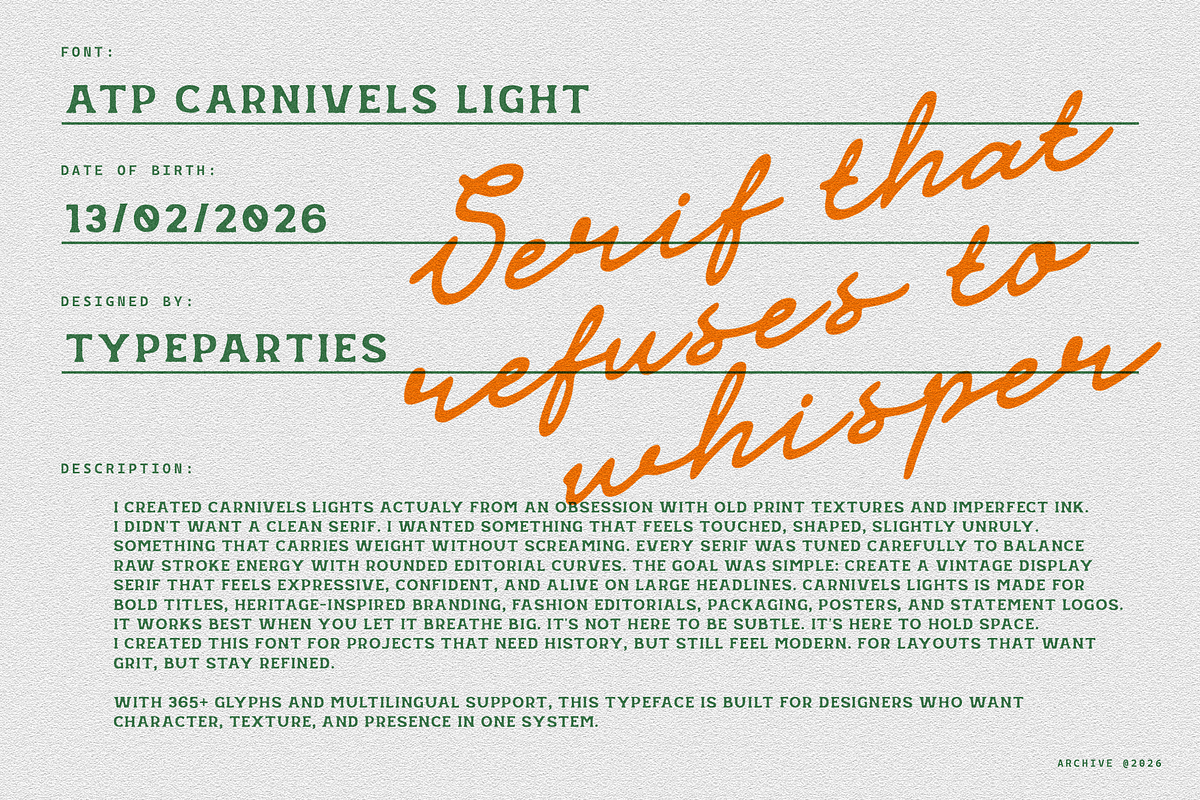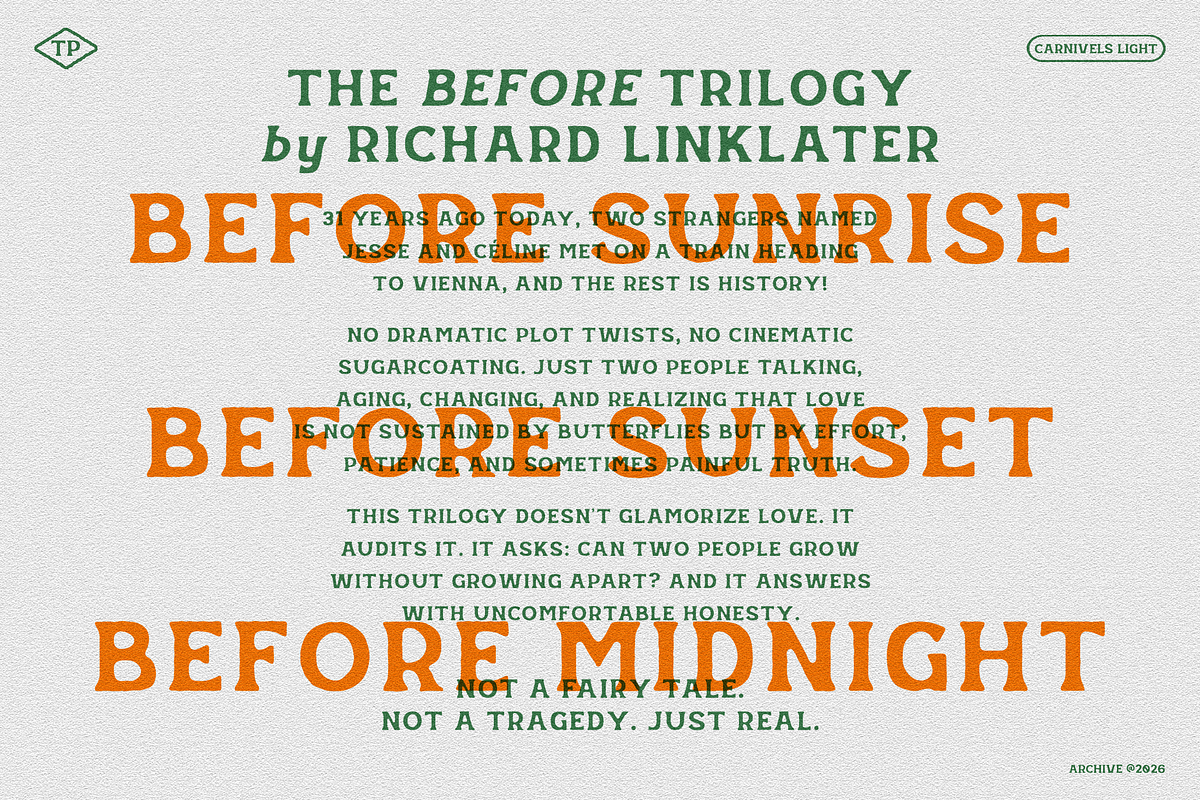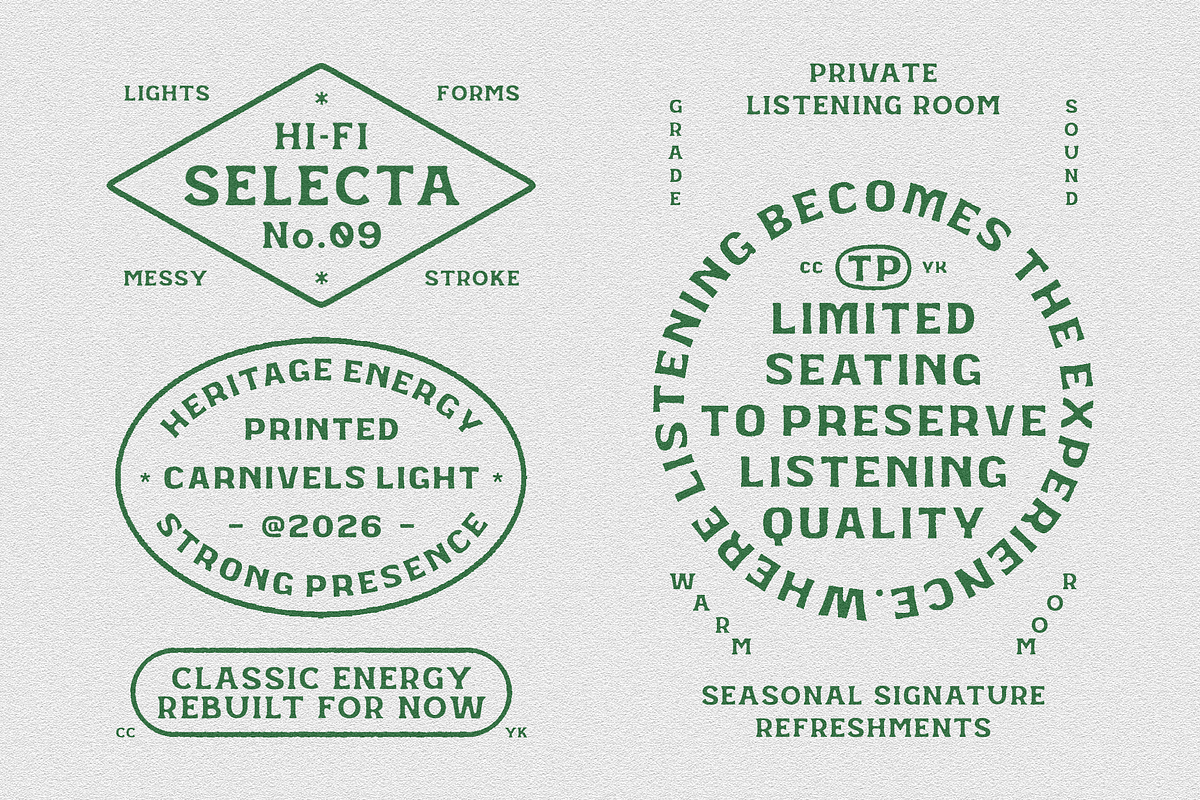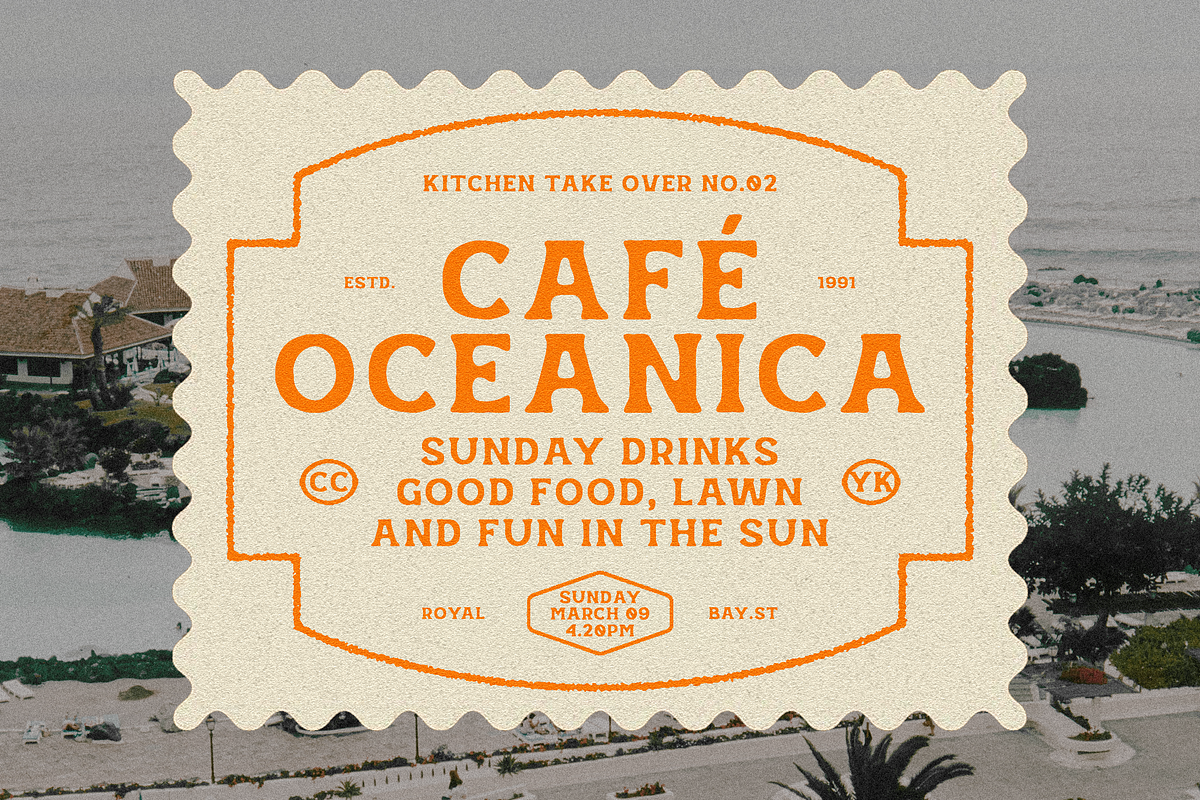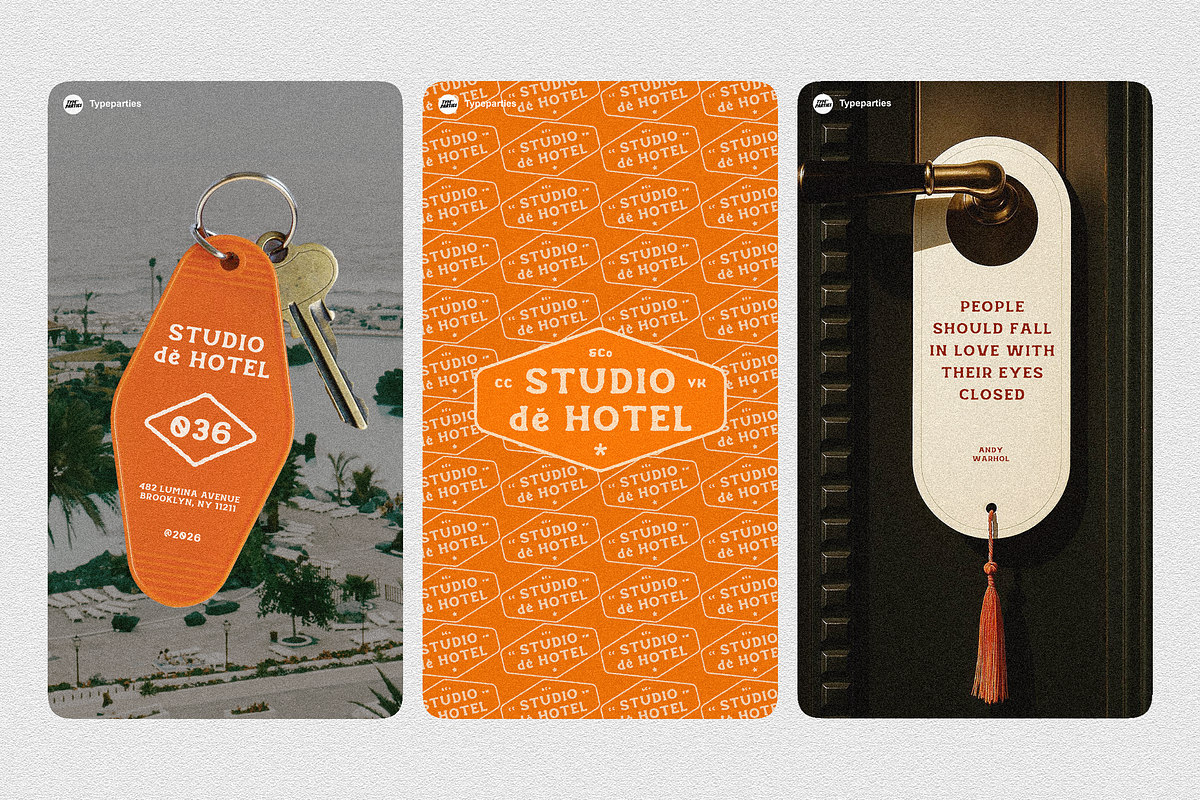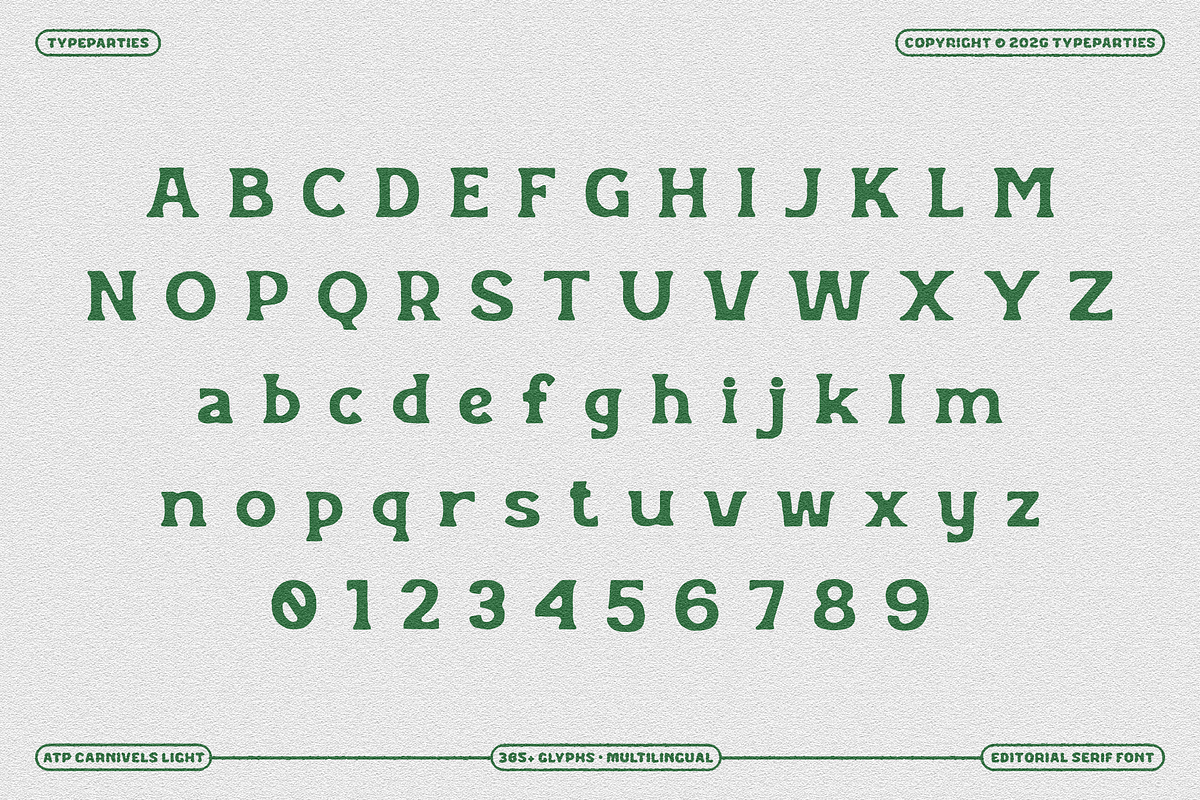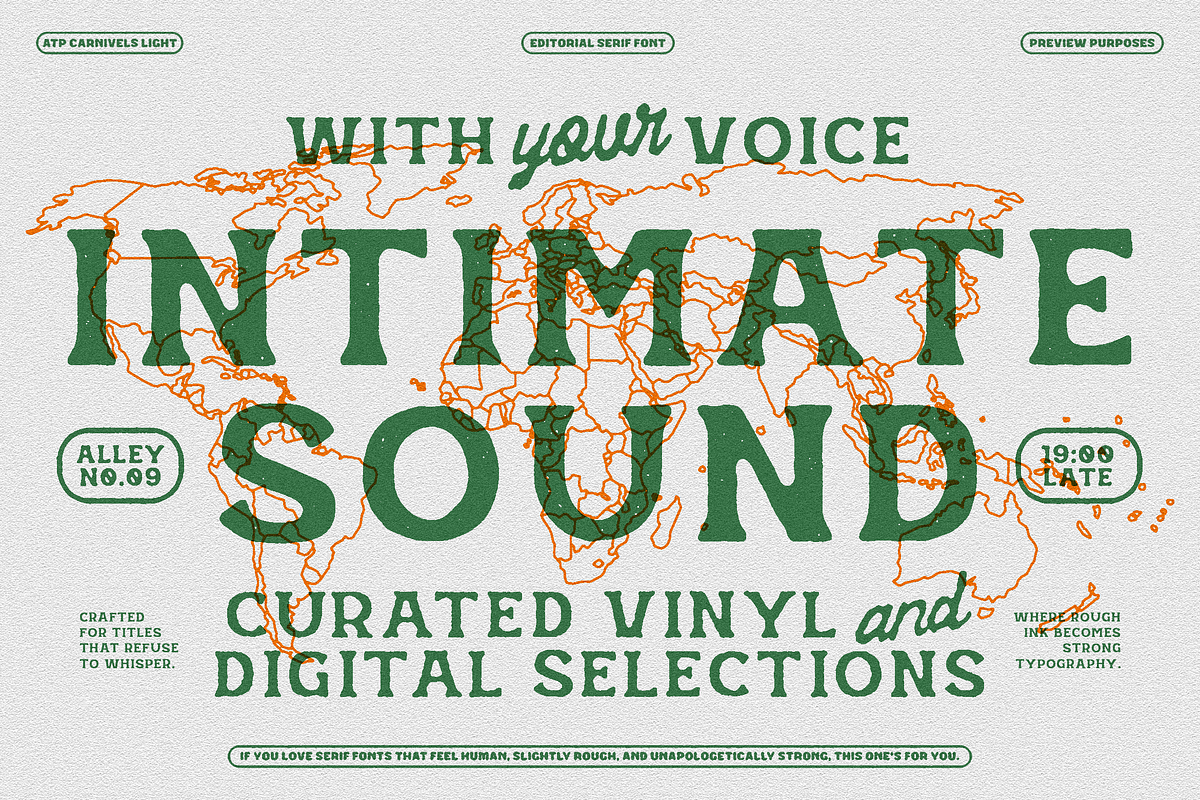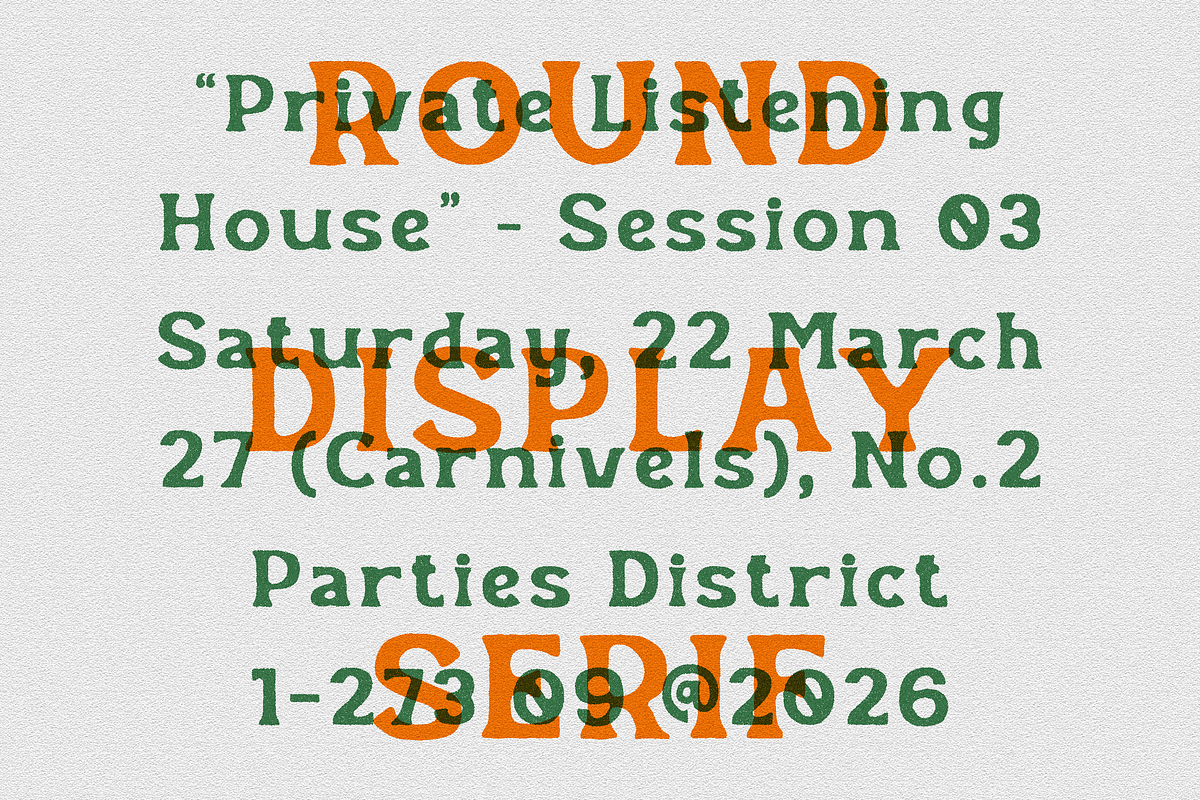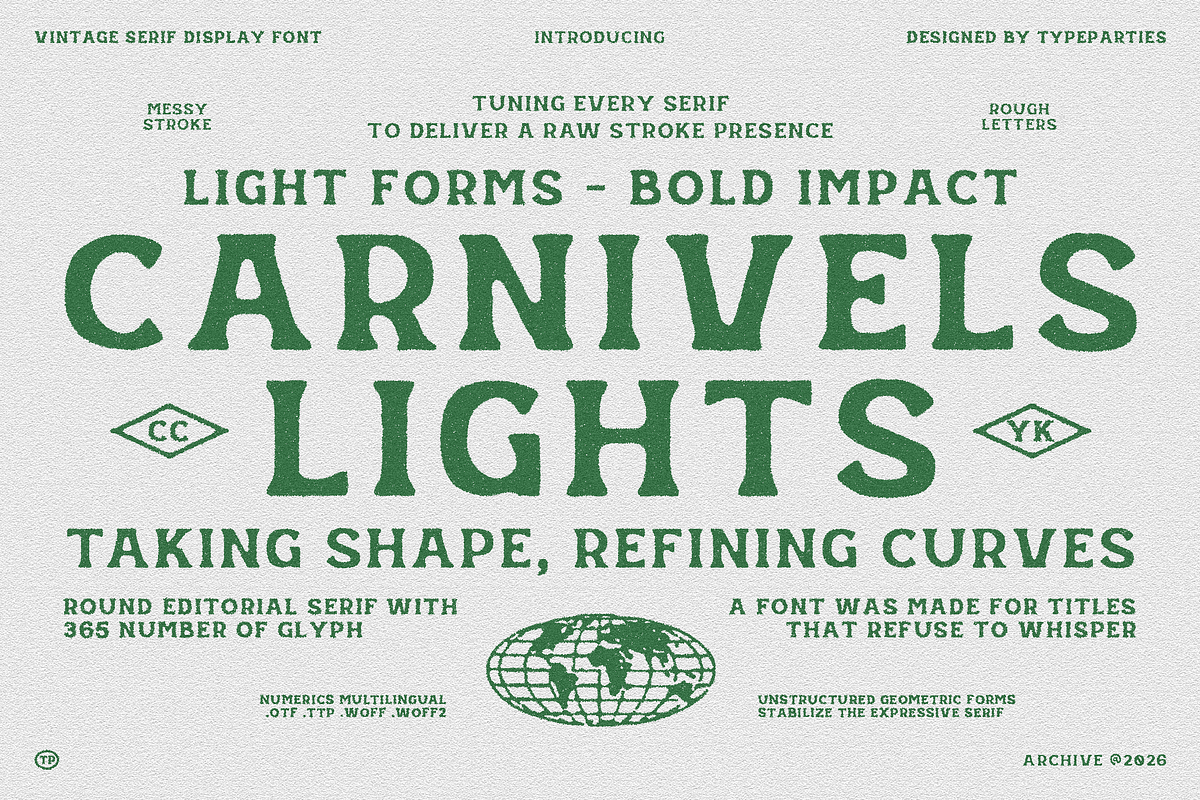
Carnivels Lights - Display Serif
I built Carnivels Lights from an obsession with old print textures and imperfect ink. I didn’t want a clean serif. I wanted something that feels touched, shaped, slightly unruly. Something that carries weight without screaming. Every serif was tuned carefully to balance raw stroke energy with rounded editorial curves. The goal was simple: create a vintage display serif that feels expressive, confident, and alive on large headlines. Carnivels Lights is made for bold titles, heritage-inspired branding, fashion editorials, packaging, posters, and statement logos. It works best when you let it breathe big. It’s not here to be subtle. It’s here to hold space. With 365+ glyphs and multilingual support, this typeface is built for designers who want character, texture, and presence in one system.